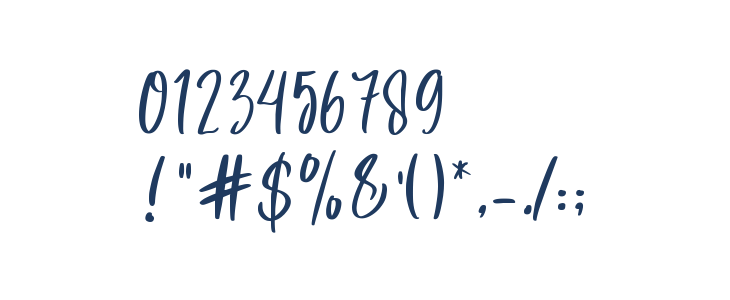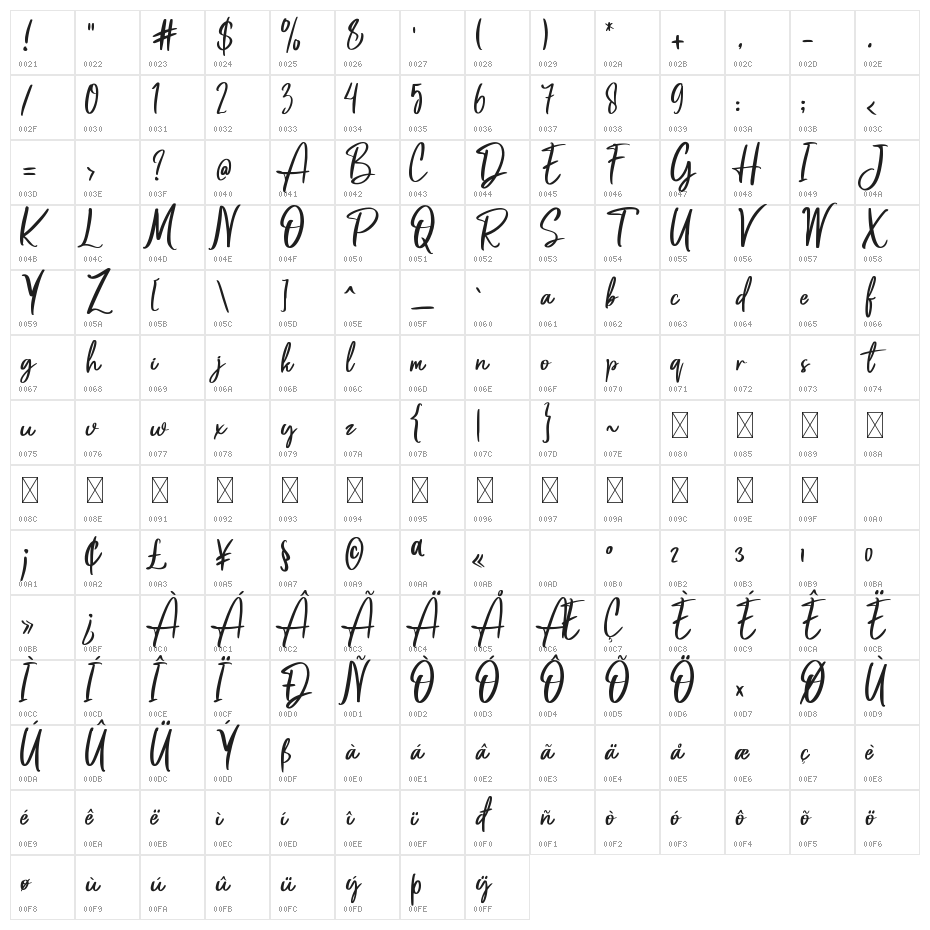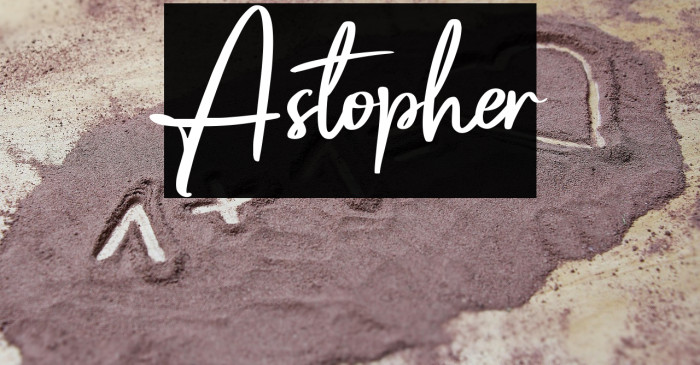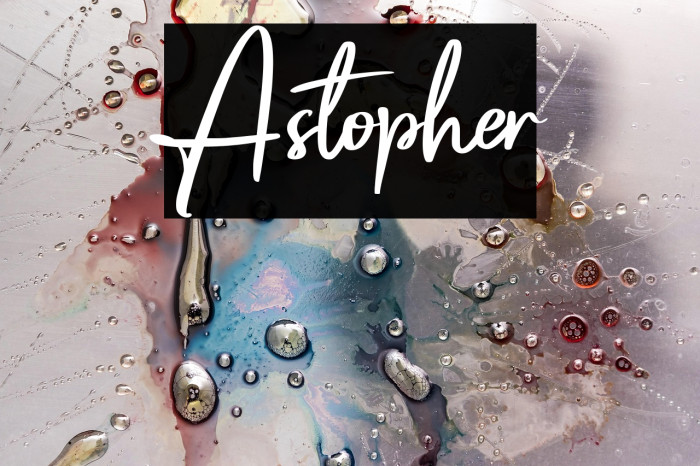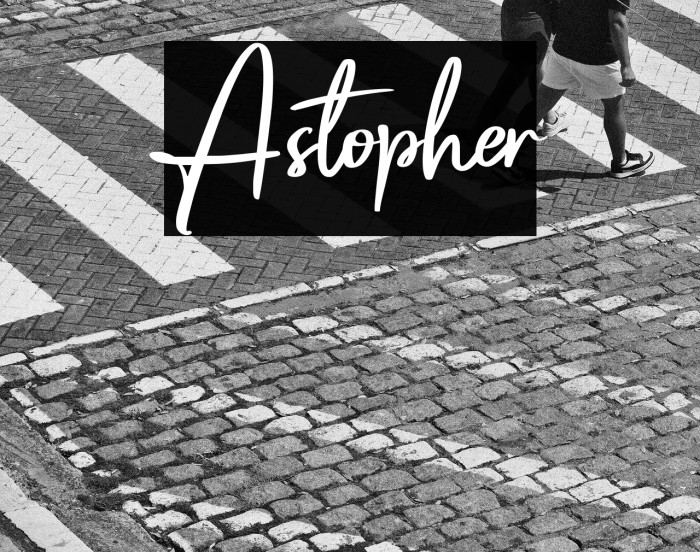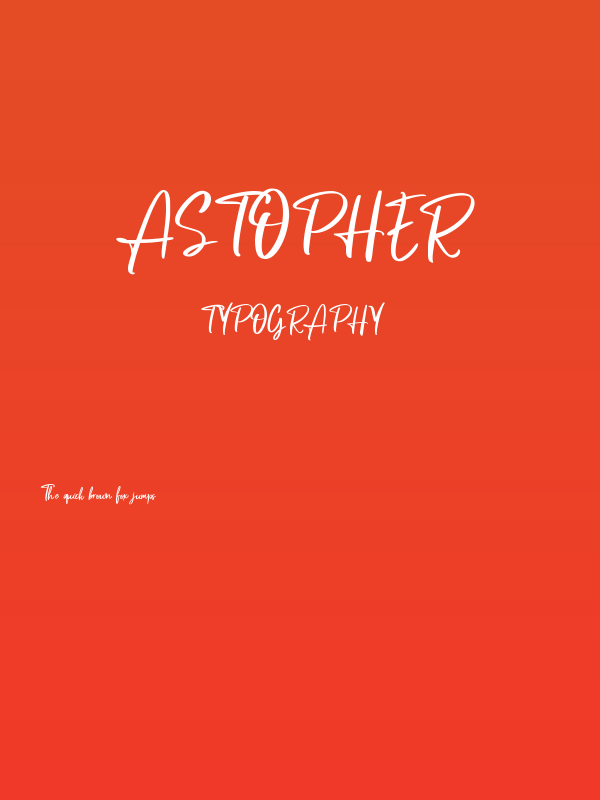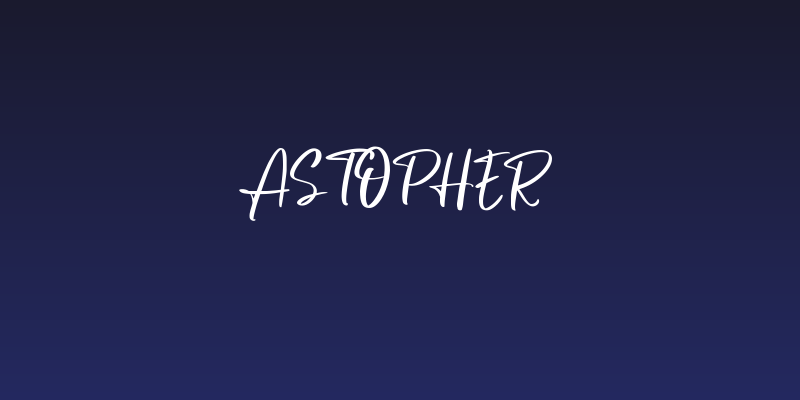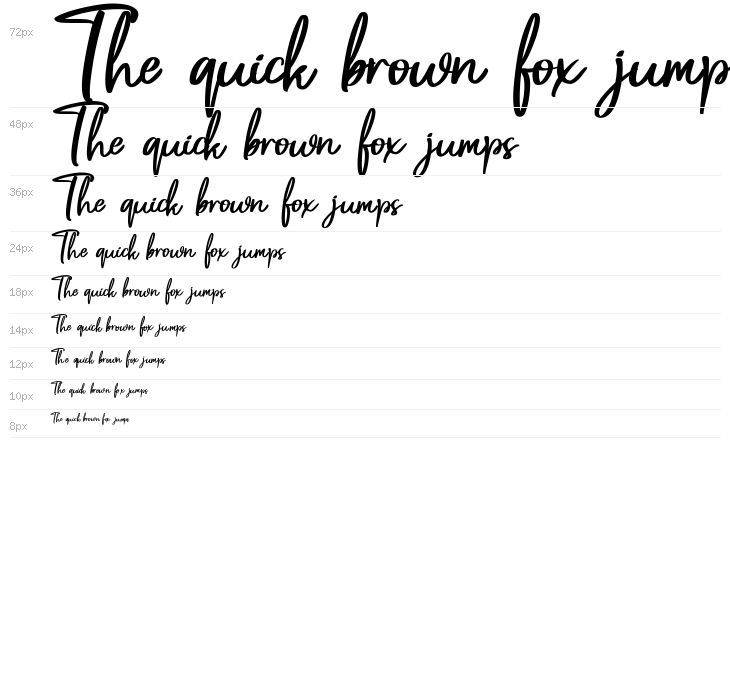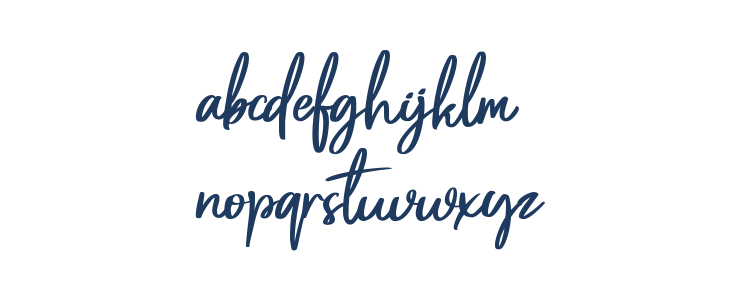
Astopher Font
Astopher Description
This font features a lively and dynamic script style, characterized by its fluid, handwritten appearance. The letters are connected with smooth, flowing strokes that give it a sense of movement and elegance. The uppercase letters are bold and expressive, while the lowercase letters maintain a consistent rhythm, enhancing readability. The numerals are distinct and maintain the same flowing style as the letters. Special characters are creatively integrated, adding to the font's versatility. This font is perfect for projects that require a personal touch or a sense of creativity.
| Use Case | Logos, Headlines, Invitations |
| Proposed Projects | Ideal for wedding invitations, greeting cards, branding, and social media graphics. |